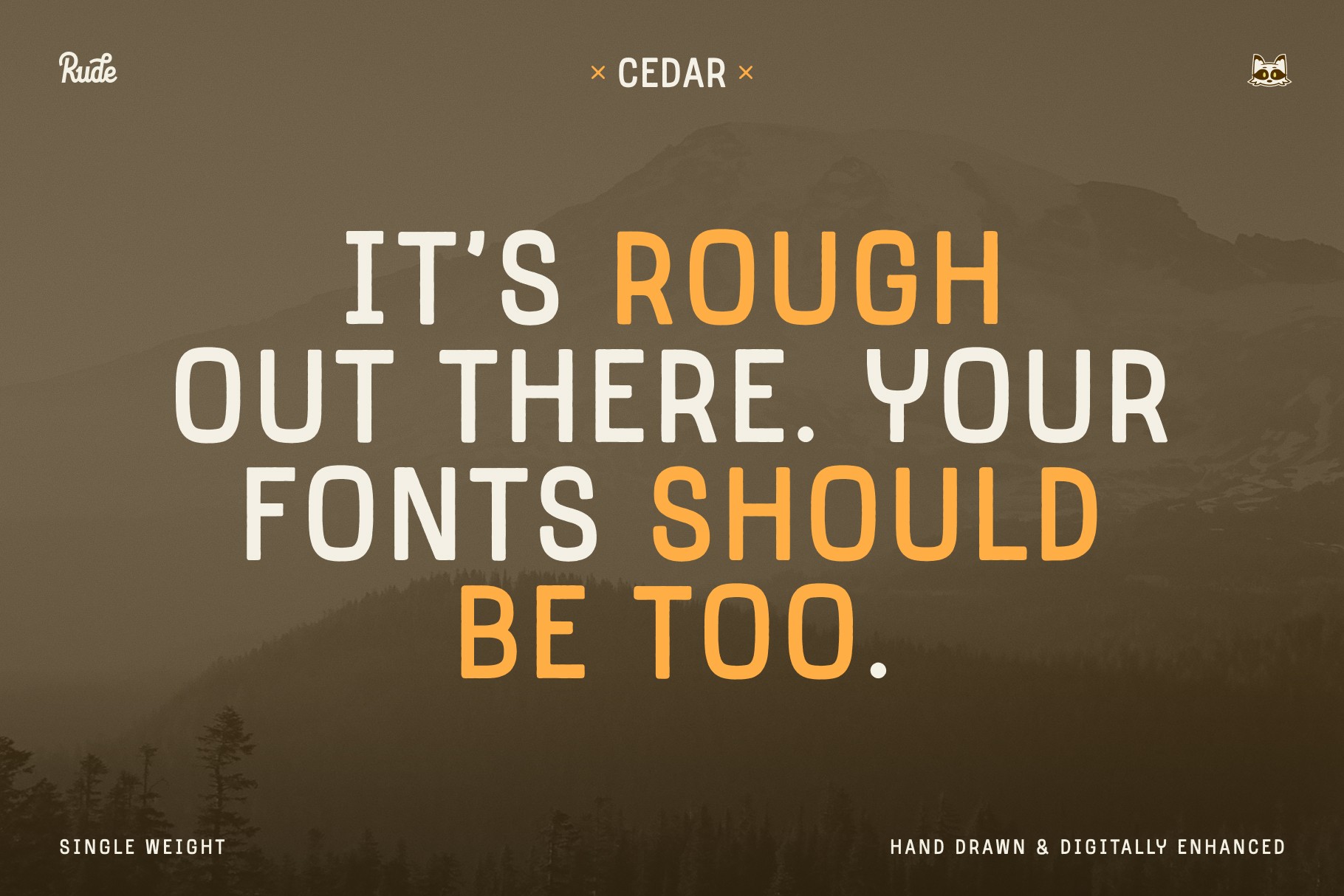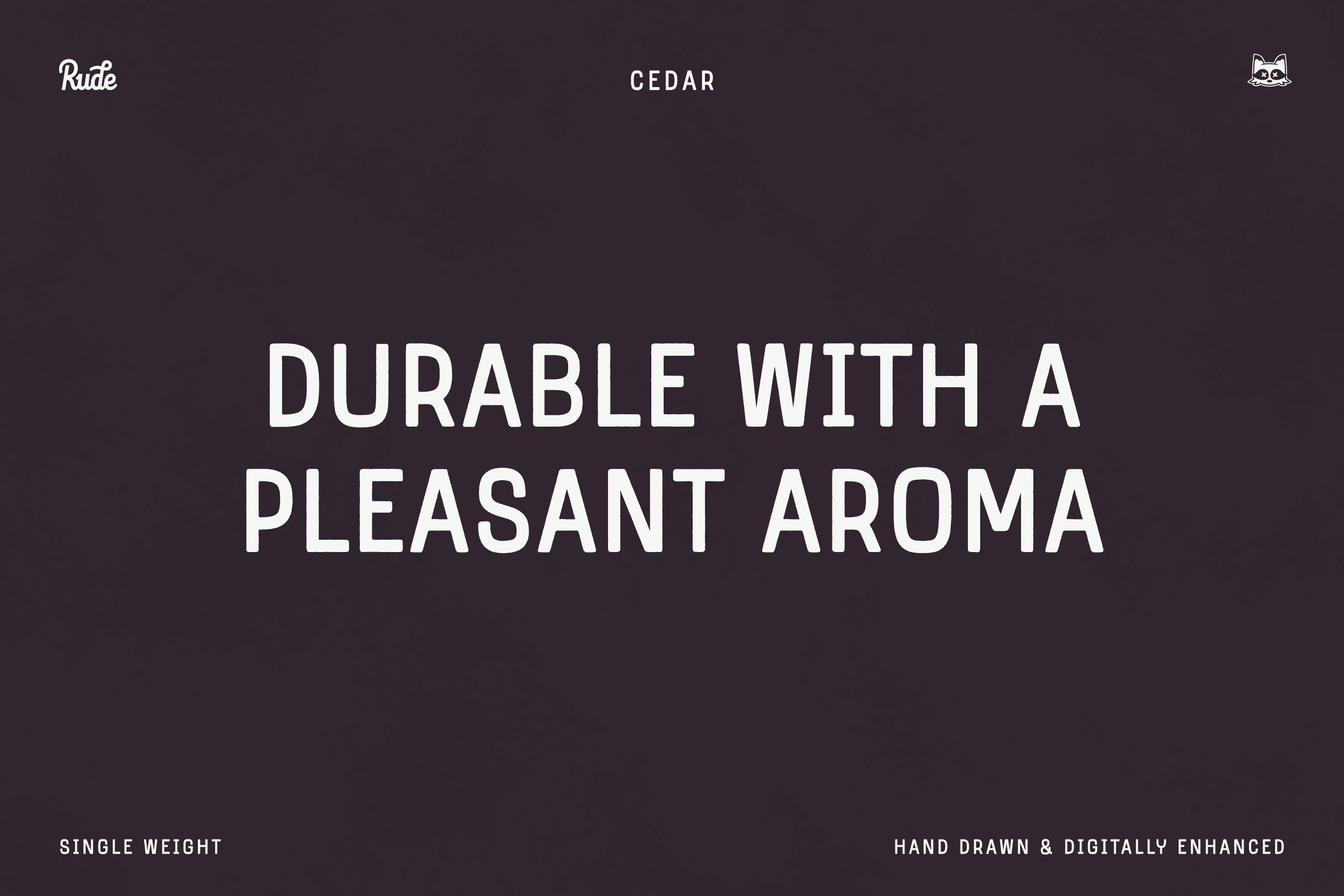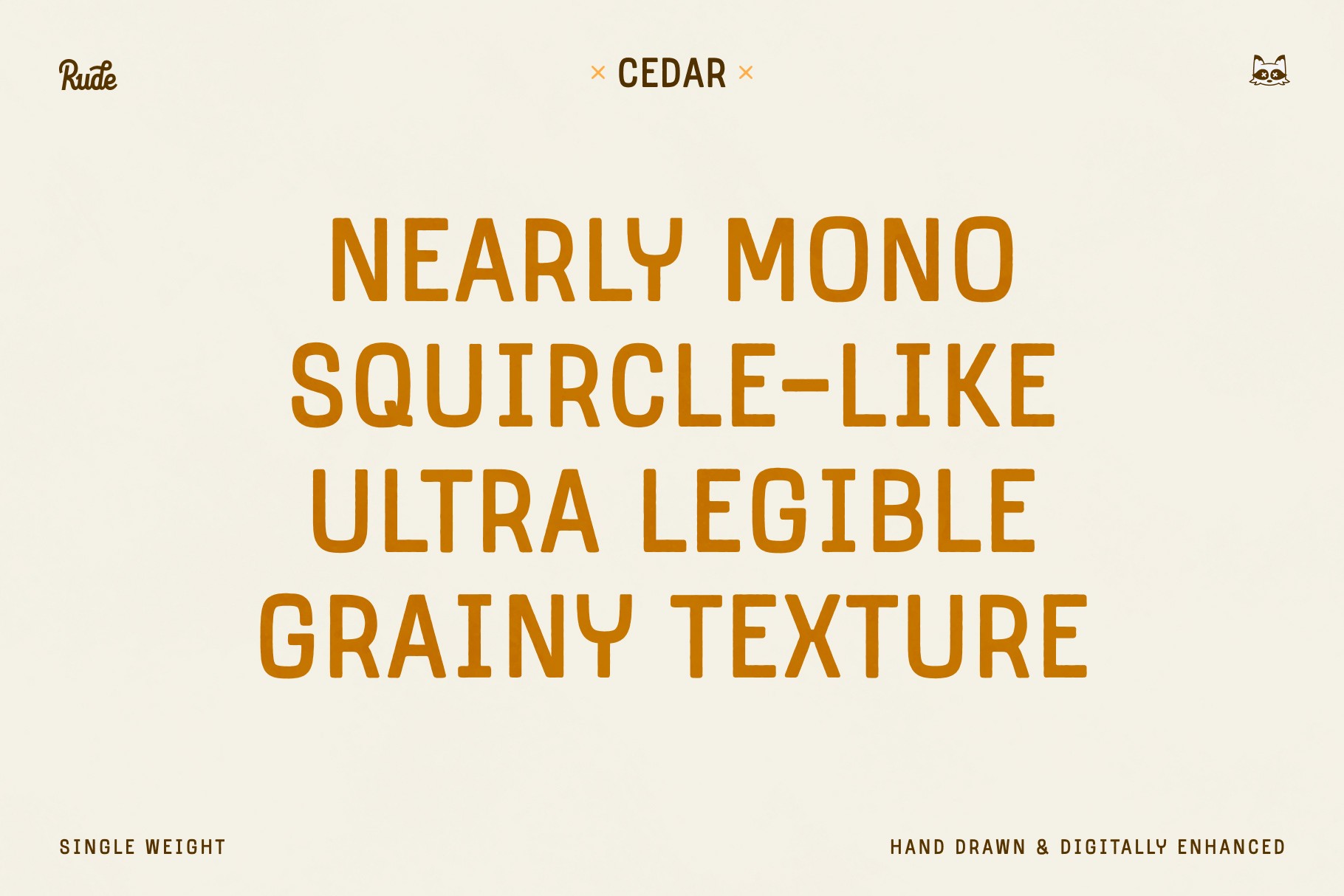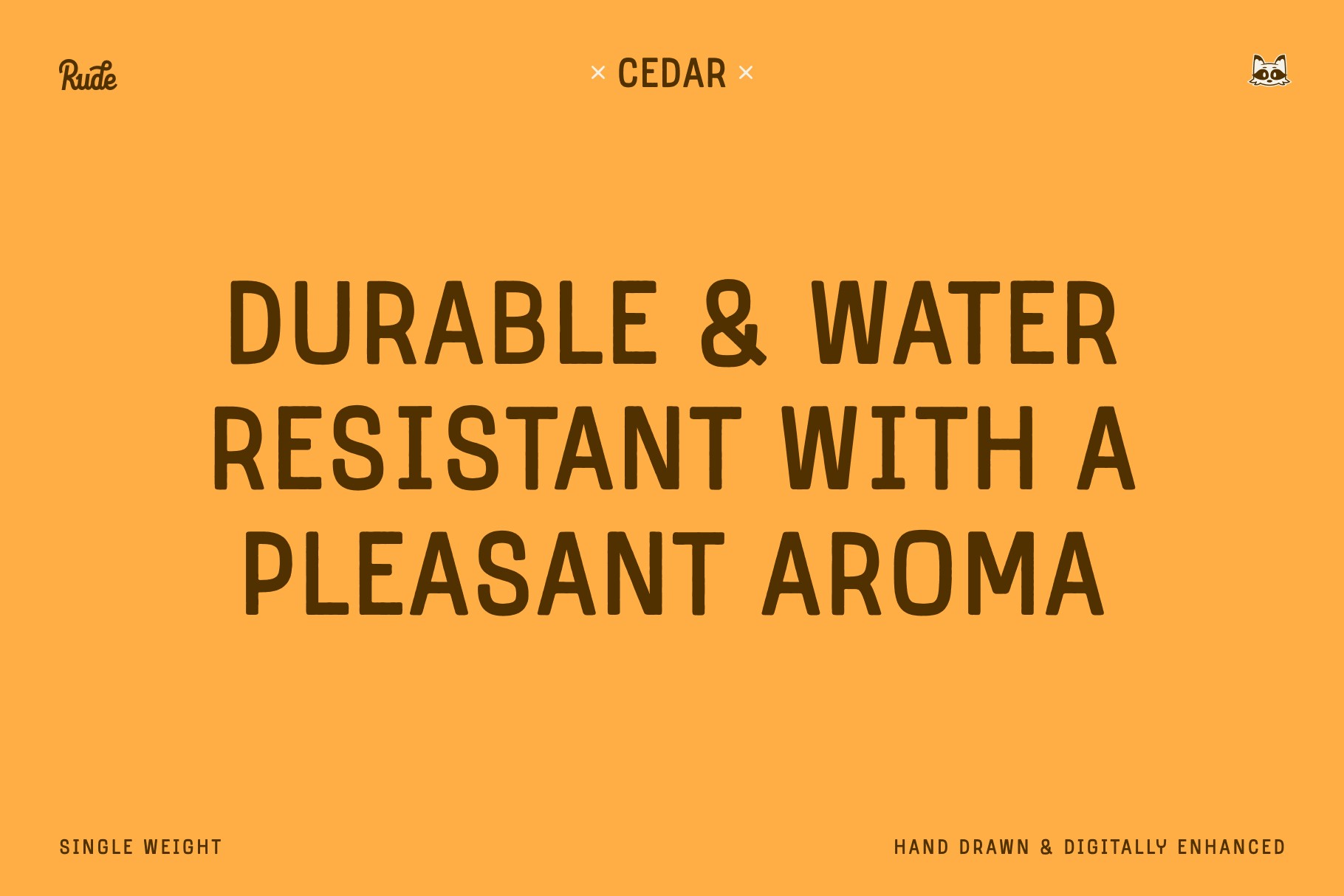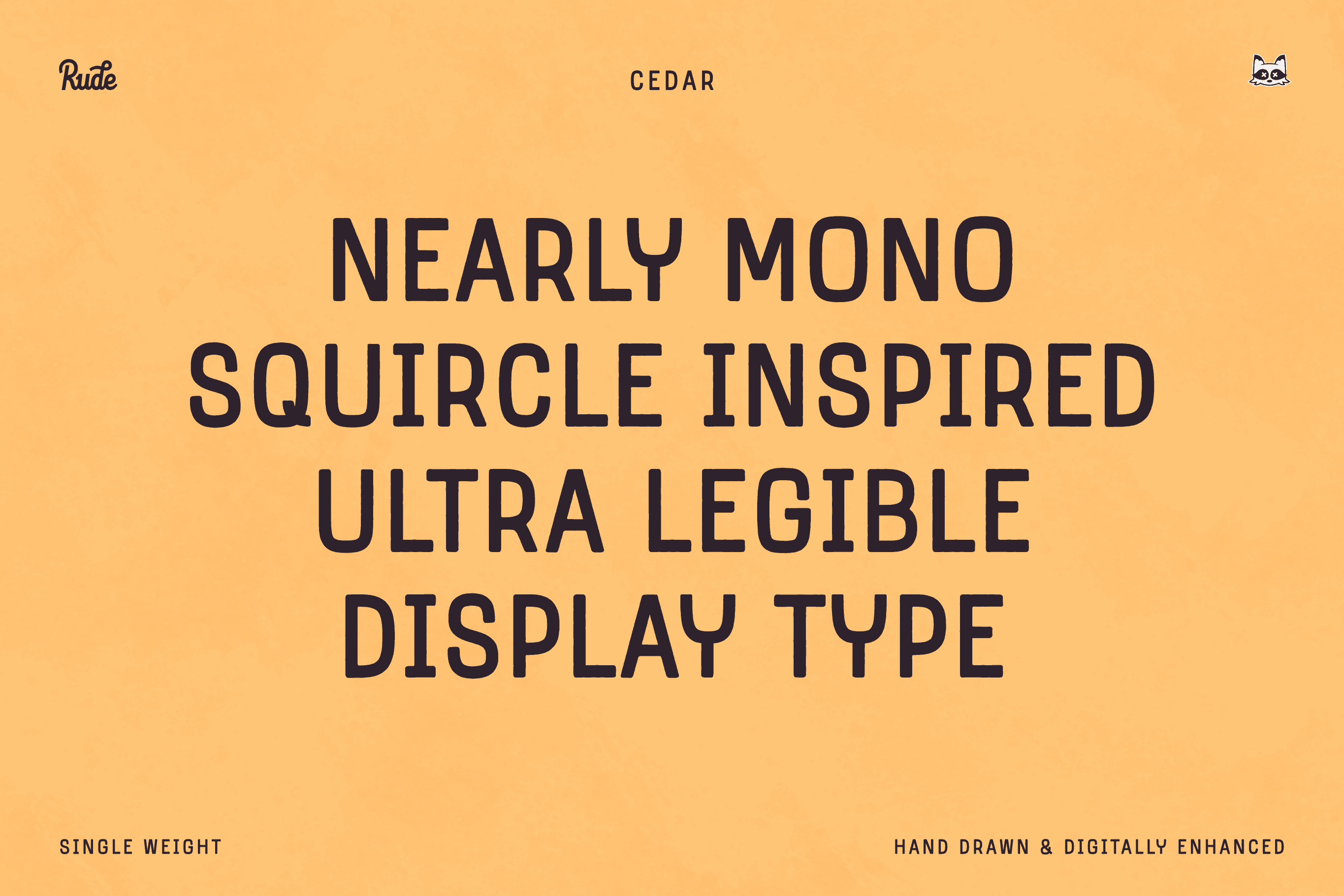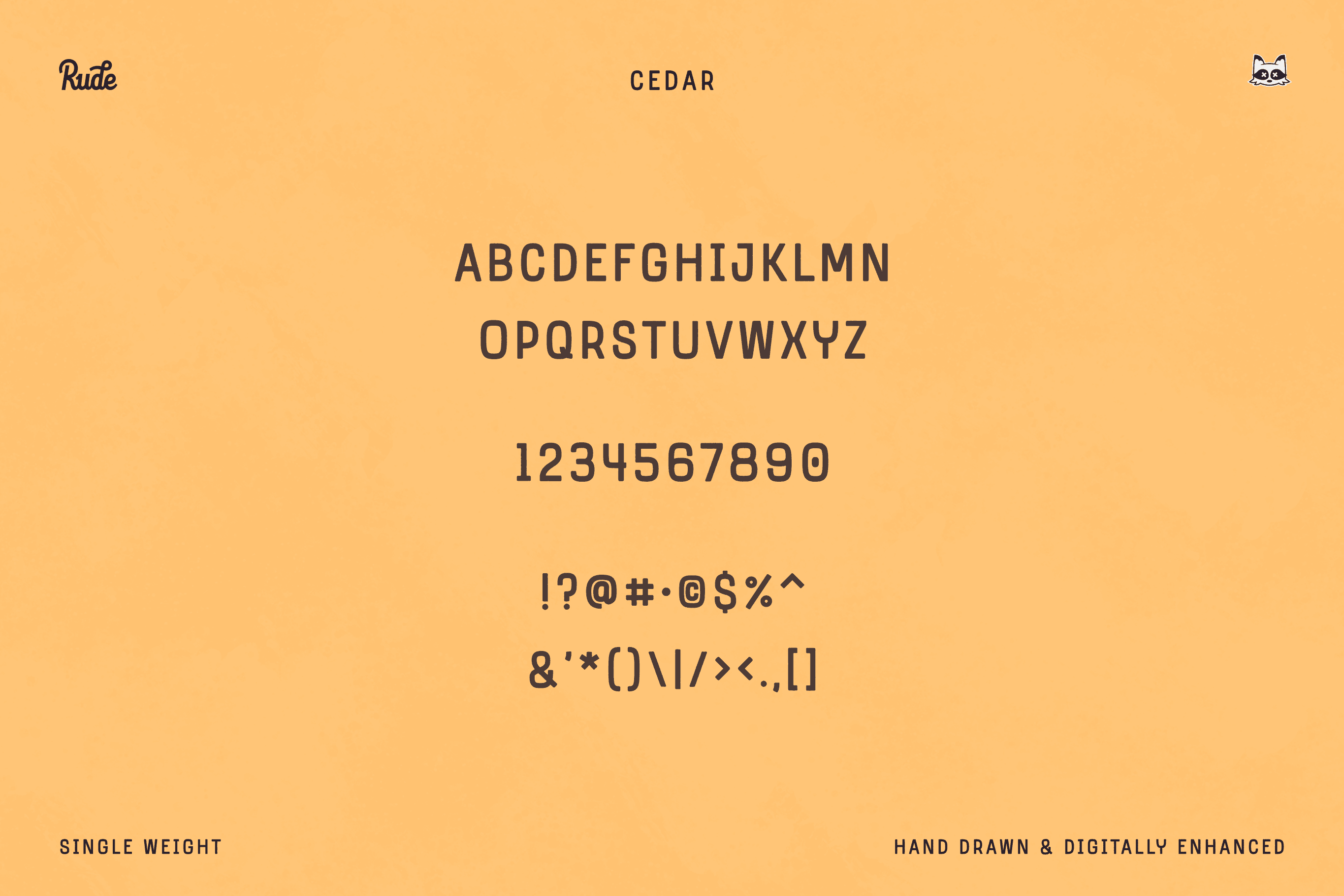
Cedar
Hand-Crafted
Display
Sans-Serif
A gritty, mono-esque, hand-crafted display typeface. This type is legible and textured with a squared circle arch system.